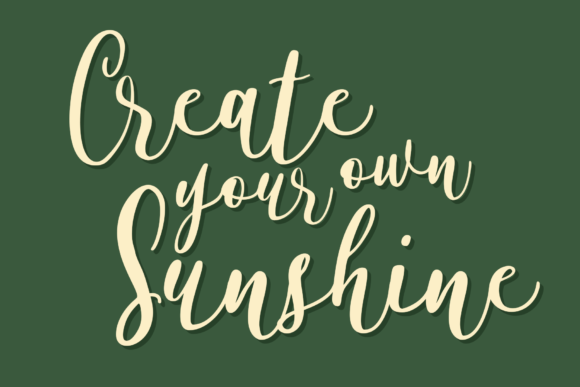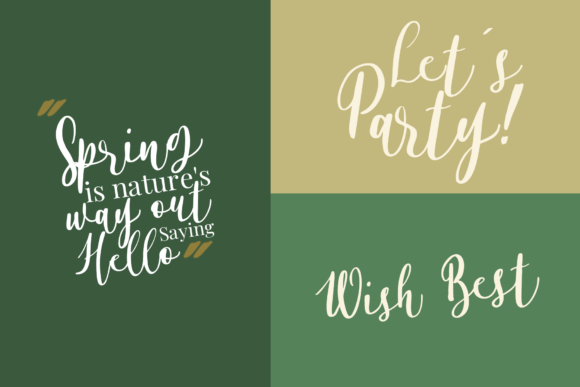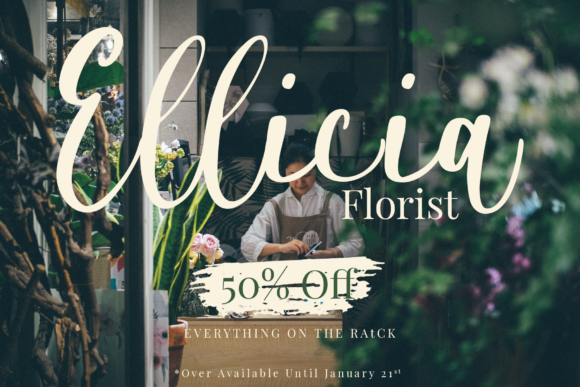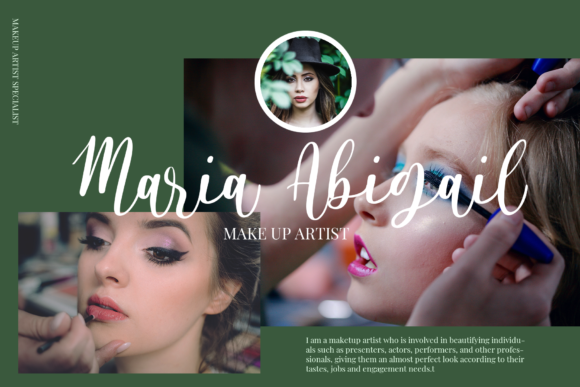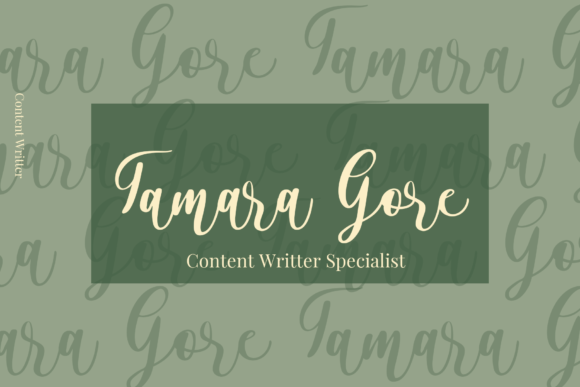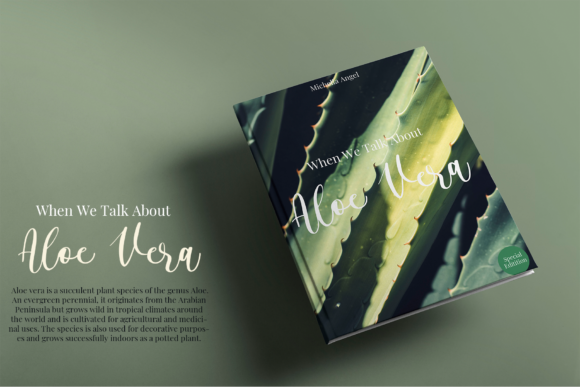
Alyssa Calligraphy Font: A Timeless and Magical Handwritten Font for Creative Designs
Are you a designer or crafter looking for a font that can elevate your creative projects to the next level? Look no further than the Alyssa Calligraphy Font. This magical and timeless handwritten font is incredibly versatile and can fit a wide variety of designs, making it a must-have for any creative enthusiast.
The Beauty of Alyssa Calligraphy Font
The Alyssa Calligraphy Font is a stunning example of handwritten typography. Its elegant and flowing lines evoke a sense of sophistication and luxury, making it perfect for designs that require a touch of class. Whether you’re creating a wedding invitation, a logo, or a social media graphic, this font is sure to make your project stand out.
One of the most impressive features of the Alyssa Calligraphy Font is its versatility. It can be used in a variety of design contexts, from formal and traditional to modern and playful. The font’s unique blend of classic and contemporary styles makes it an excellent choice for designers who want to create something truly unique.
Why Choose Alyssa Calligraphy Font?
So, why should you choose the Alyssa Calligraphy Font for your next design project? Here are just a few reasons:
- Timeless appeal: The Alyssa Calligraphy Font has a timeless quality that will never go out of style. Its classic lines and elegant curves make it a font that will remain relevant for years to come.
- Versatility: As mentioned earlier, this font is incredibly versatile and can be used in a wide range of design contexts.
- Easy to read: Despite its elegant and cursive nature, the Alyssa Calligraphy Font is surprisingly easy to read, making it perfect for body text as well as headlines.
- Unique and distinctive: The Alyssa Calligraphy Font has a unique and distinctive style that will set your designs apart from the crowd.
How to Use Alyssa Calligraphy Font in Your Designs
Using the Alyssa Calligraphy Font in your designs is easy. Here are a few tips to get you started:
- Pair it with a sans-serif font: For a classic and elegant look, pair the Alyssa Calligraphy Font with a sans-serif font like Arial or Helvetica.
- Use it for headlines and titles: The Alyssa Calligraphy Font is perfect for headlines and titles, where its elegant lines and curves can really shine.
- Add some flair with swashes: The Alyssa Calligraphy Font comes with a range of swashes and flourishes that can add an extra touch of elegance to your designs.
Perfect for Crafters and Designers
The Alyssa Calligraphy Font is a perfect choice for crafters and designers who want to add a touch of elegance and sophistication to their projects. Whether you’re creating:
- Wedding invitations and stationery: The Alyssa Calligraphy Font is perfect for creating beautiful and elegant wedding invitations and stationery.
- Logos and branding: This font is ideal for creating logos and branding materials that require a touch of class and sophistication.
- Social media graphics: The Alyssa Calligraphy Font can add a touch of elegance and style to your social media graphics, making them stand out in a crowded feed.
- DIY crafts and projects: This font is perfect for crafters who want to add a personal touch to their DIY projects, such as handmade cards and gift tags.
In conclusion, the Alyssa Calligraphy Font is a magical and timeless handwritten font that is perfect for designers and crafters who want to add a touch of elegance and sophistication to their projects. Its versatility, unique style, and ease of use make it a must-have for any creative enthusiast.